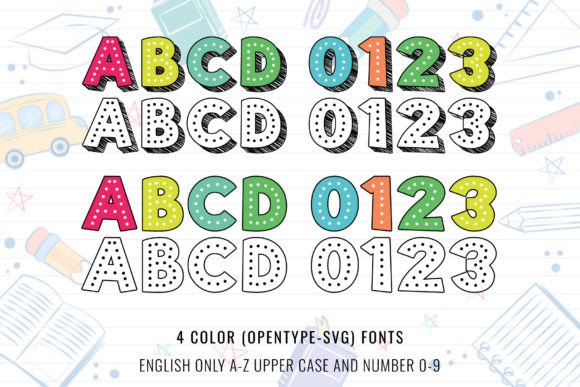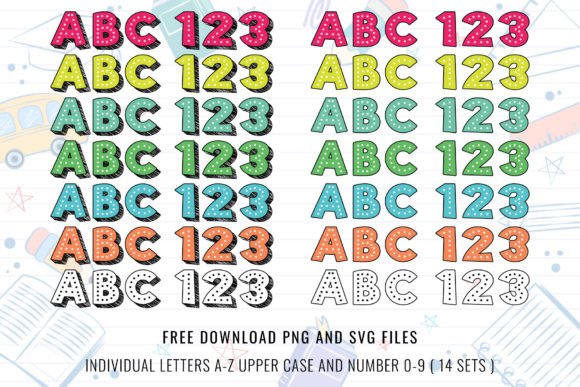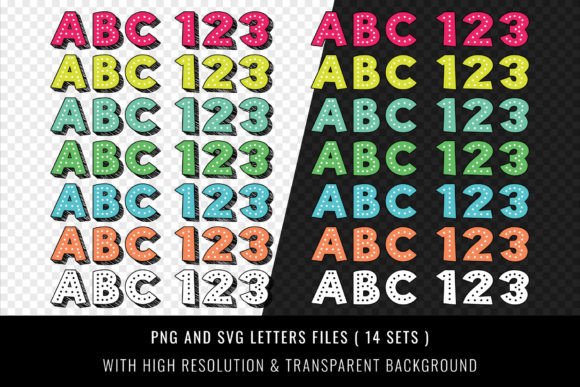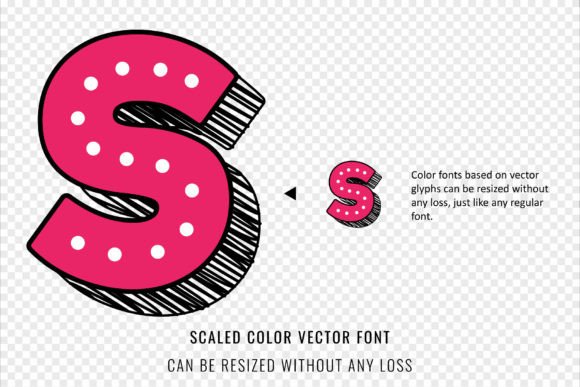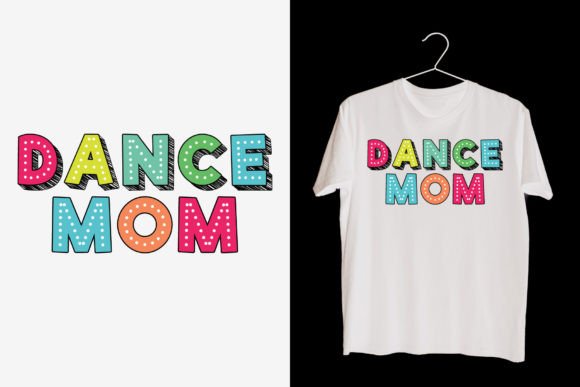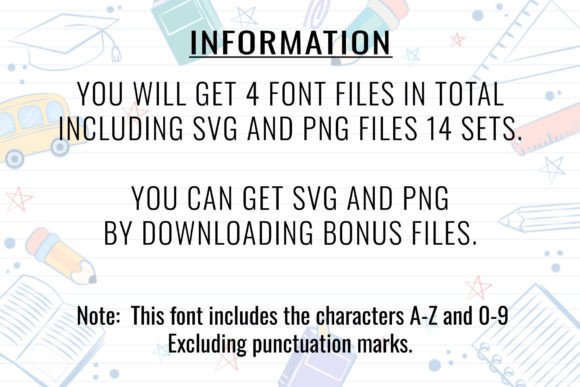
Get Ready to Unleash Your Creativity with Dotted Rainbow Font
Have you ever been working on a project, and suddenly, a spark of creativity hits you? You see a vibrant color palette in your mind, and you know exactly what you want to create. That’s what happened to me when I first laid eyes on the Dotted Rainbow Font. This fun and playful color font is the perfect addition to any designer’s toolkit, bringing joy and fun to your projects.
As a designer, you’re always on the lookout for that special something that sets your designs apart. The Dotted Rainbow Font delivers, with its unique style and versatility making it ideal for a wide range of projects, from t-shirts and book designs to restaurant menus and greeting cards.
Dotted Rainbow Font Key Features
- Font Family: Dotted Rainbow Font is a unique, hand-drawn font family that features a colorful, dotted design.
- Unique Characteristics: Features a distinctive, hand-drawn style with colorful dots and varying line widths, giving it a playful and whimsical feel.
Dotted Rainbow Font Review
Overall, I was really excited to dive into the Dotted Rainbow Font, and there are definitely some great aspects to it ✨. One of the things that stood out to me was the unique and playful aesthetic. The dotted design element adds a fun and whimsical touch that could be perfect for projects that need a bit of personality.
- The font is highly customizable, allowing for a range of color options and customization.
- The dotted design element adds a fun and unique touch to any text.
- The font is well-suited for use in digital applications, such as social media graphics or website headers.
However, there are a few limitations to consider ⚠️. One of the main issues I had was with the font’s legibility at smaller sizes. While it’s perfect for headings and titles, it can be a bit difficult to read at smaller font sizes. Additionally, the dotted design element may not be suitable for all types of projects or audiences.
Overall, I think the Dotted Rainbow Font is a great option for projects that need a bit of personality and whimsy. While it may not be suitable for all types of projects, it’s definitely worth considering for those that need a fun and unique font. With a bit of customization and careful consideration of the font size, I think this font has a lot of potential.
Here are some tips to get the most out of the Dotted Rainbow Font:
- Use it sparingly to create visual interest.
- Pair it with solid fonts for contrast.
- Experiment with different font sizes and colors to create unique effects.
The Dotted Rainbow Font is commonly used in:
- Wedding invitations and decorations.
- Children’s party materials and decorations.
- Graphic design projects that